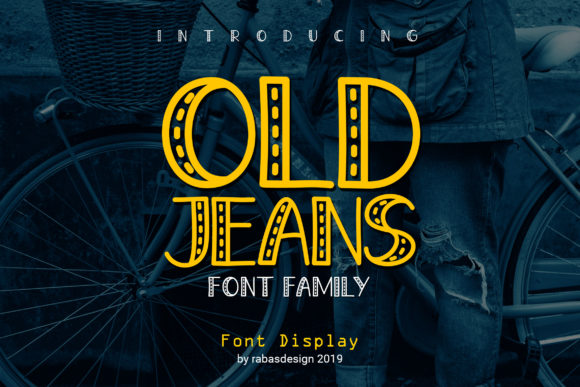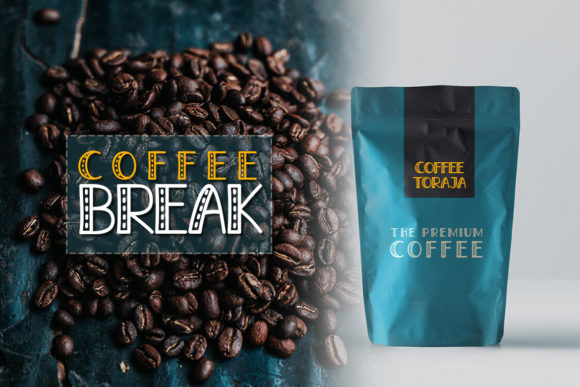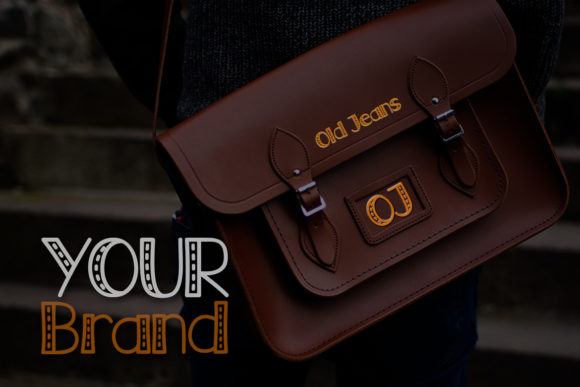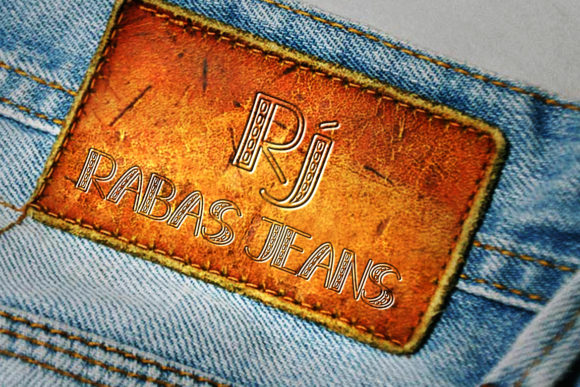
Old Jeans Font
About the Old Jeans Font
Explore the possibilities with Old Jeans Font, a font that offers both beauty and functionality. The Old Jeans is an unique family font, inspired by stitching on jeans. The display font has characteristics that are easy to remember, which makes it perfect for any design which needs to stand out!
Old Jeans Font excels as a display typeface for headlines, logos, and short text segments in branding projects, posters, and packaging designs. Its distinctive texture and slightly rugged character create a strong visual impact, ideal for conveying a vintage or Americana aesthetic. However, its unique texture makes it less suitable for body copy or UI elements where readability is paramount. Extended use would likely strain visual comfort.
The font’s personality is best described as rugged yet approachable; a blend of vintage charm and modern boldness. Its inherent texture lends itself well to projects emphasizing authenticity, heritage, or a handcrafted feel. Consider pairing it with a clean sans-serif like Montserrat for a balanced contrast or a classic serif like Playfair Display for a more traditional feel. A script font with a similar vintage feel could also work well for secondary text elements.
For maximum impact, use Old Jeans Font sparingly, allowing its unique character to shine. Overuse could dilute its effect.
Old Jeans Font Usage Examples
Old Jeans Font Example